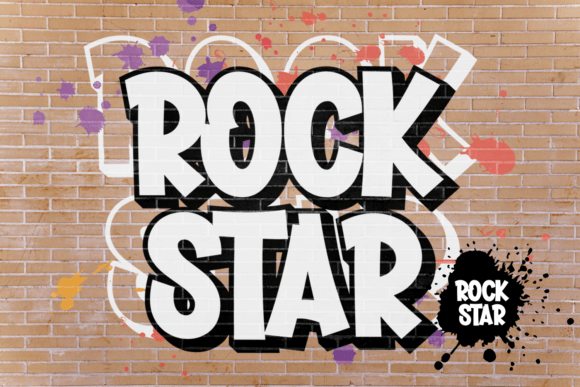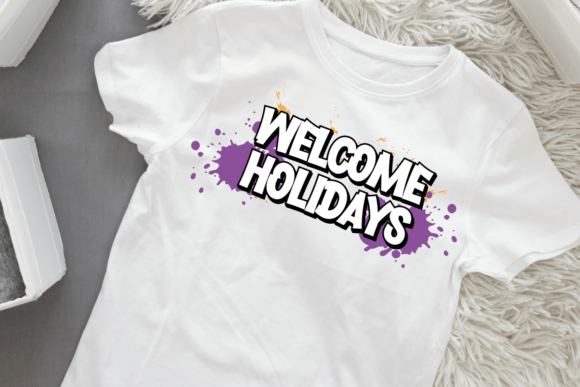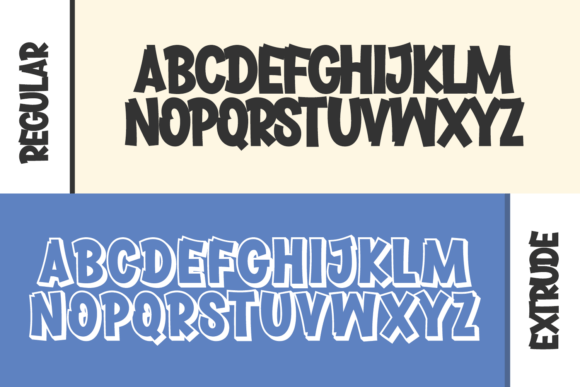
Kings Mostar Font
Kings Mostar is a unique and interesting display font.  A little bit quirky, this font looks incredibly adept on a wide variety of contexts!